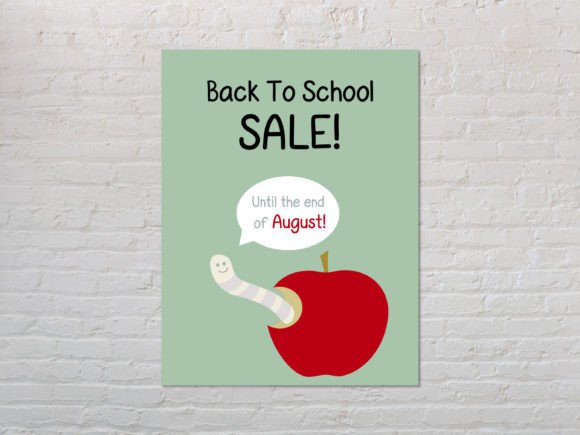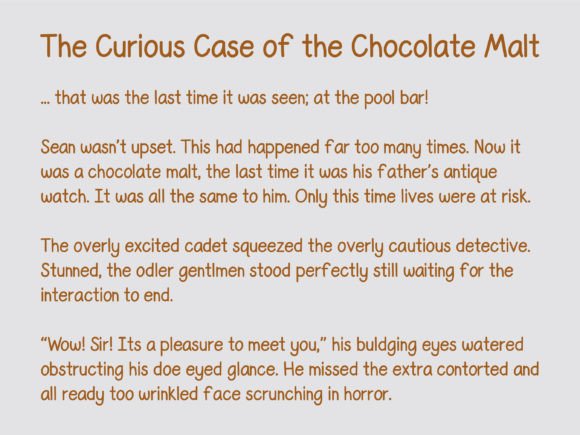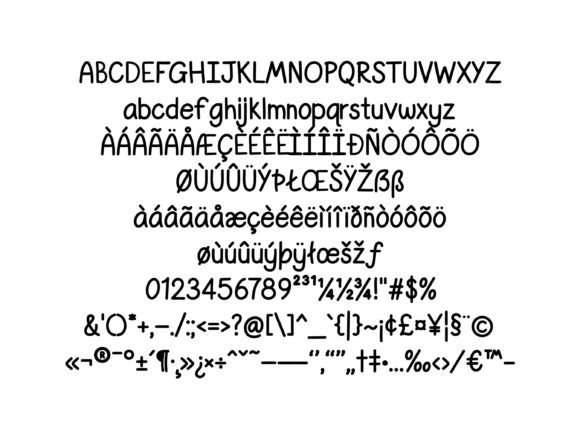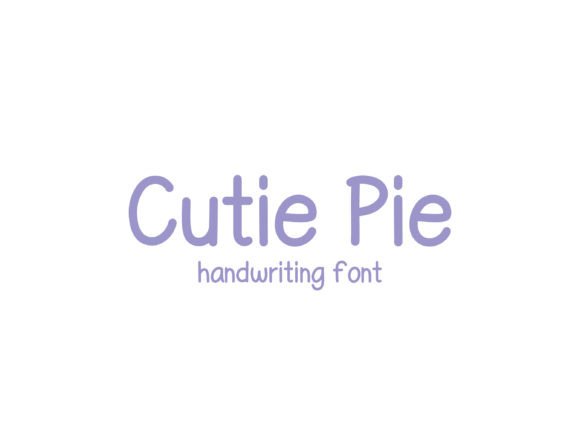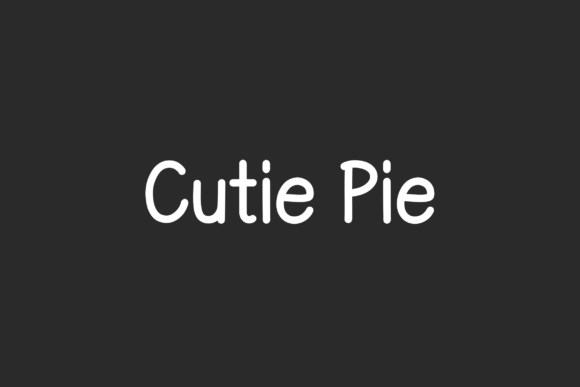
Introducing Cutie Pie Font: The Cutest Font in the Galaxy
This is the cutest font in the galaxy. It’s neat yet adorable! Use it for posters, note-taking, or even cute logo designs. Your imagination is the limit. If you’re a designer, crafter, or simply someone who loves all things cute, you’re in for a treat. Cutie Pie Font is here to revolutionize the way you create and design, bringing a touch of whimsy and fun to your projects.
The Charm of Cutie Pie Font
Cutie Pie Font is more than just a font; it’s an experience. Imagine being able to add a dash of cuteness to your designs, making them instantly more appealing and engaging. Whether you’re working on a children’s book, a craft project, or a marketing campaign aimed at a younger audience, Cutie Pie Font is the perfect choice. Its neat yet adorable design makes it versatile enough for a wide range of applications, from posters and flyers to note-taking and journaling.
Why Designers Love Cutie Pie Font
Designers are always on the lookout for fonts that can help their work stand out. Cutie Pie Font offers a unique blend of playfulness and professionalism that is hard to find. Here are a few reasons why designers are falling in love with Cutie Pie Font:
- Versatility: Cutie Pie Font is incredibly versatile. It can be used in a variety of contexts, from digital designs to print materials. Whether you’re creating a logo, a poster, or a digital graphic, this font adapts beautifully.
- Readability: Despite its cute and playful design, Cutie Pie Font remains highly readable. This makes it perfect for body text as well as headings, ensuring that your message is conveyed clearly and effectively.
- Uniqueness: In a sea of standard fonts, Cutie Pie Font offers a breath of fresh air. Its unique design helps your work stand out, making it more likely to catch the eye of your audience.
Crafters and DIY Enthusiasts Rejoice!
Crafters and DIY enthusiasts are also in for a treat with Cutie Pie Font. Whether you’re making handmade cards, decorating journals, or creating custom stickers, this font can add that extra special touch to your projects. Here are a few ways you can use Cutie Pie Font in your crafting projects:
- Handmade Cards: Add a personal touch to your greeting cards with Cutie Pie Font. It’s perfect for card messages, titles, and even decorative elements.
- Journaling: Make your journal entries or bullet journals more visually appealing with this adorable font. Use it for headings, titles, or even to highlight important notes.
- Custom Stickers: If you’re into making custom stickers for your planners or journals, Cutie Pie Font can help you create cute and personalized stickers.
Cutie Pie Font is a game-changer for designers, crafters, and anyone looking to add a touch of cuteness to their projects. Its unique blend of neatness and adorability, combined with its versatility and readability, makes it an excellent choice for a wide range of applications. So why wait? Download Cutie Pie Font today and let your imagination run wild. Whether you’re creating posters, note-taking, or designing cute logos, Cutie Pie Font is sure to bring your designs to life in the most adorable way possible.